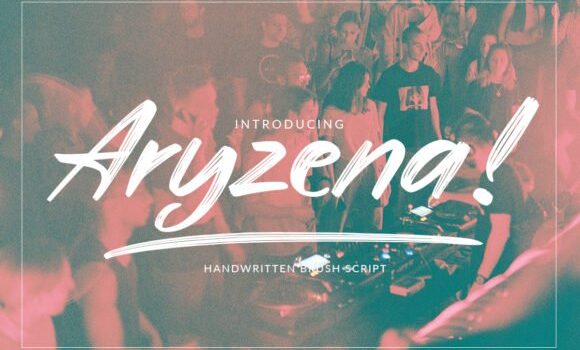
Aryzena Font – Free Download Introduction to Aryzena Font Aryzena is handwritten script textured brush font. 📸 Preview Gallery 6 images 📌 Product Name Aryzena Font 👤 Author Scratch Design 📂 Category Explore ⬇️ Download Aryzena Font FREE Free Download